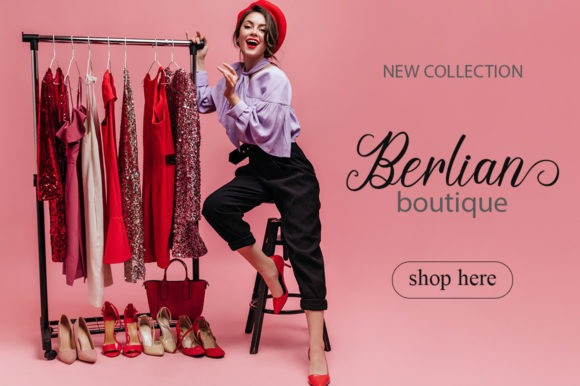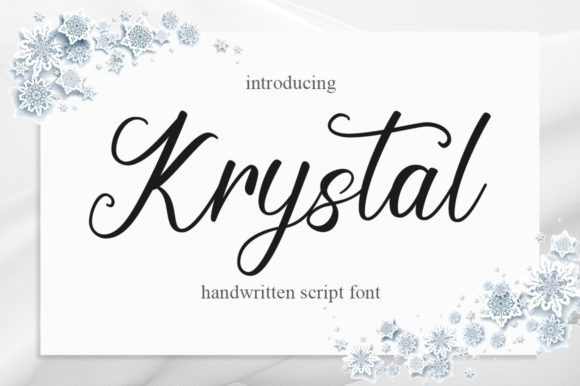
Krystal Font
Krystal Script Font is a stylish and incredibly elegant script font. It looks stunning on wedding invitations, thank you cards, quotes, greeting cards, logos, business cards, or any other design that needs a customized touch. This font is PUA encoded which means you can access all glyphs and swashes with ease!